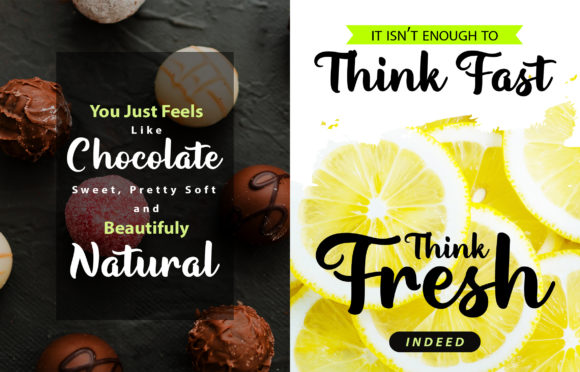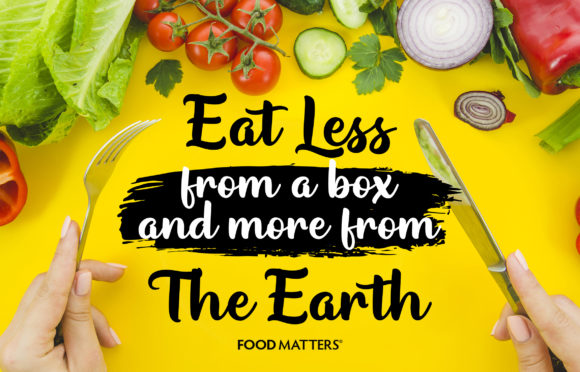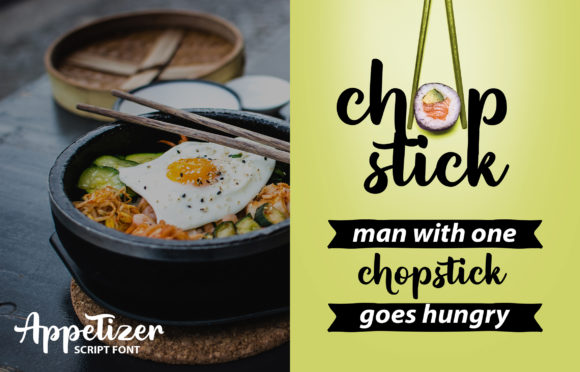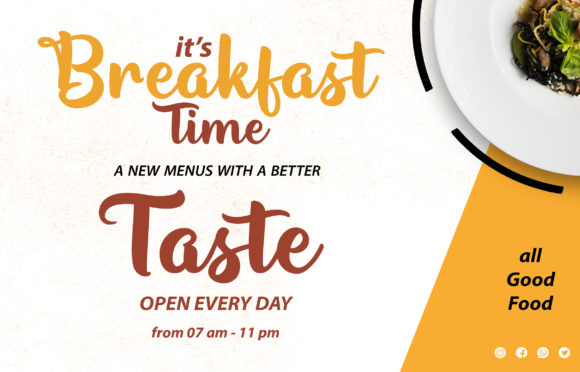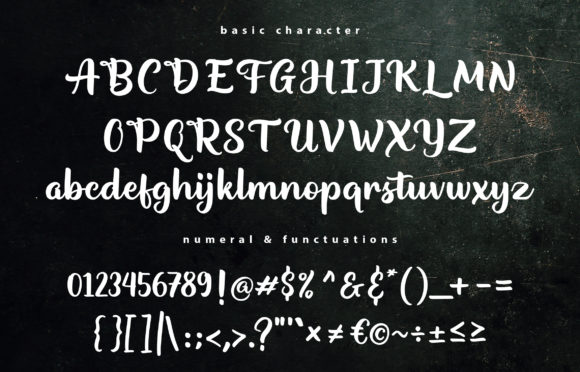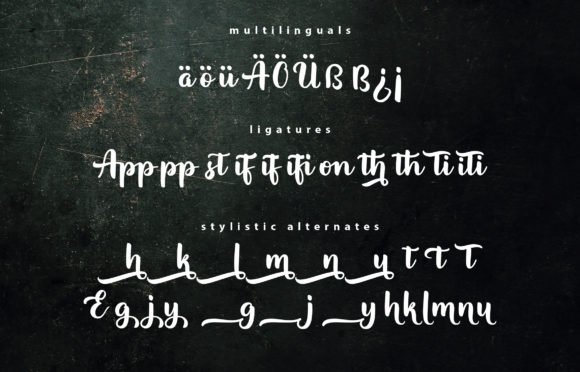
Introducing Appetizer Font: Elevate Your Designs with Elegance and Versatility
In the world of typography, finding the perfect font that combines elegance, tradition, and modernity can be a daunting task. However, for designers and crafters looking to add a touch of sophistication to their projects, Appetizer Font stands out as an exceptional choice. This distinct, elegant script font seamlessly blends traditional influences with a contemporary aesthetic, making it an invaluable asset for anyone aiming to achieve an exquisite yet subtle look.
The Distinctive Characteristics of Appetizer Font
Appetizer Font is characterized by its well-balanced Latin details, which contain distinctive contrasts. These contrasts not only add to the font’s elegance but also contribute to its versatility. The traditional influences are evident in its classic script structure, while the contemporary touches ensure it remains fresh and relevant. This blend of old and new makes Appetizer Font a unique addition to any design project.
Achieving an Exquisite yet Subtle Look
One of the key advantages of Appetizer Font is its ability to convey elegance without being overpowering. Its subtle yet impactful design ensures that it can be used in a variety of contexts, from luxury branding and high-end product packaging to elegant wedding invitations and sophisticated digital content. The font’s refined appearance adds a layer of class to any project, making it an excellent choice for designers who aim to create a lasting impression.
Maximum Versatility for Diverse Projects
Versatility is a crucial factor when selecting a font for a project. Appetizer Font excels in this regard, offering maximum flexibility across different mediums and applications. Whether you’re working on a digital platform, such as a website or social media graphics, or on print materials like brochures, posters, or business cards, Appetizer Font adapts seamlessly. Its clear legibility and aesthetic appeal ensure that your message is conveyed effectively, regardless of the project’s scope or format.
Why Designers and Crafters Love Appetizer Font
Designers and crafters appreciate fonts that not only look good but also enhance their creative workflow. Appetizer Font is praised for its ease of use and compatibility with various design tools and software. Its well-crafted letters and words provide a smooth design experience, allowing creatives to focus on the artistic aspects of their projects rather than struggling with typography.
Tips for Using Appetizer Font Effectively
- Pair it with Neutral Fonts: For maximum impact, pair Appetizer Font with neutral, sans-serif fonts. This contrast will highlight the elegance of Appetizer Font and create a balanced visual hierarchy.
- Experiment with Sizes: Don’t be afraid to experiment with different sizes. Appetizer Font maintains its elegance and legibility across various sizes, making it suitable for headlines, subheadings, and body text.
- Use it for Branding: Consider using Appetizer Font for logos or brand names to add a touch of sophistication and luxury.
Appetizer Font is more than just a typeface; it’s a design element that can elevate your projects to new heights of elegance and sophistication. Its unique blend of traditional and contemporary influences, combined with its versatility and aesthetic appeal, makes it an indispensable tool for designers and crafters. Whether you’re aiming to create a subtle yet impactful design or seeking to add a touch of luxury to your project, Appetizer Font is an excellent choice. Embrace the elegance and versatility of Appetizer Font in your next design venture and experience the difference it can make.